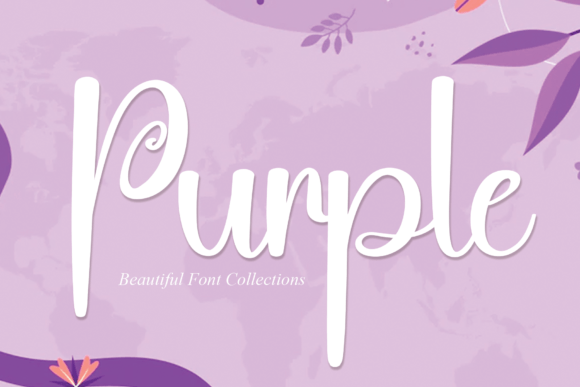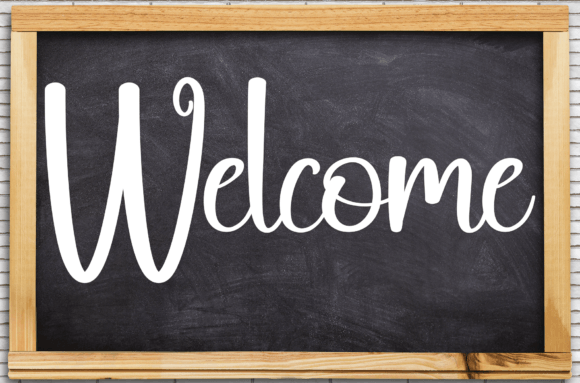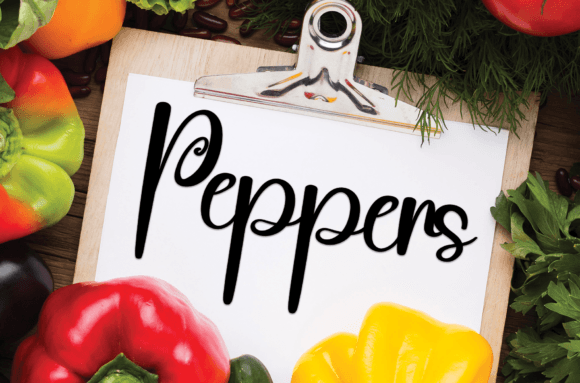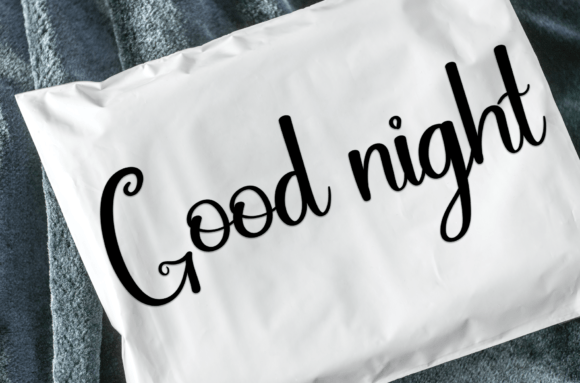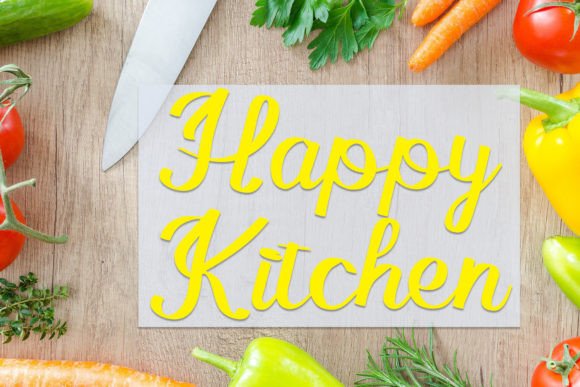
Purple Font
What Is Purple Font?
Purple is a sweet and friendly handwritten font that adds a joyful and inviting feel to any project. With its smooth curves and playful style, this font transforms ordinary text into something special and memorable. If you want your designs to look charming and approachable, Purple is a perfect choice.
From the first glance, you’ll see how it brings warmth and personality to your work.
Purple is highly versatile, which means it works beautifully in many situations. For example, it’s perfect for wedding invitations. Whether your theme is modern, classic, or rustic, this font adds a heartfelt and unique touch.
It also shines on greeting cards. When you need to share warm wishes, happy messages, or sincere thanks, Purple helps you express it with style.
On social media, Purple makes your posts stand out. Use it for quotes, announcements, or promotions, and your content will look cheerful and engaging.
If you design product packaging or labels, Purple brings a friendly, handmade feel that makes any brand look more approachable. Whether it’s for small businesses, personal projects, or creative portfolios, this font adapts easily to any theme.
Why Choose Purple Font?
There are plenty of reasons to include Purple in your font library. For one, it remains clear and legible at any size. From large headlines to tiny captions, every letter keeps its smooth and balanced look.
It pairs effortlessly with serif and sans-serif fonts, making it easy to build layouts that feel cohesive and polished.
Purple adds warmth, character, and playfulness to your designs. Even the simplest layouts look more captivating with its charming handwritten style. Whether you’re working on wedding stationery, social media graphics, or product packaging, this font helps you stand out and connect with your audience.
Using a quality handwritten font also shows your attention to detail and commitment to creativity.
Purple is more than just a font—it’s a way to bring joy and authenticity to every project. From invitations and greeting cards to branding and labels, it adds a personal touch that makes your work shine.